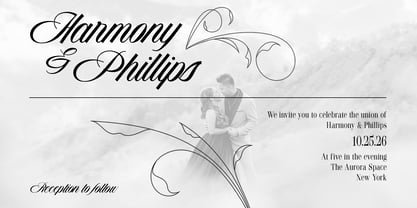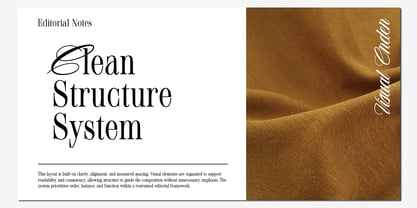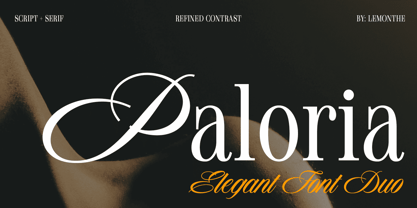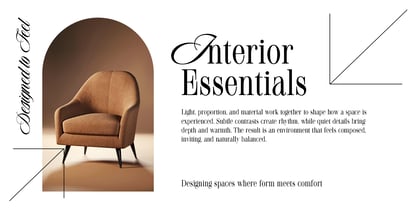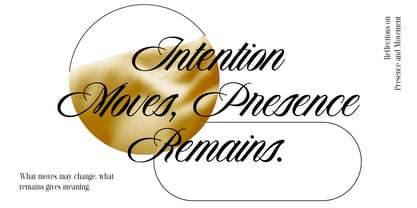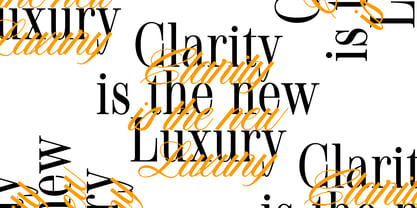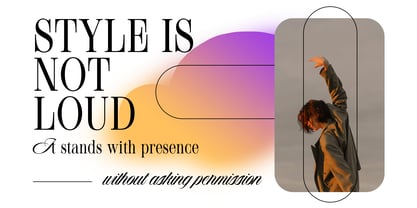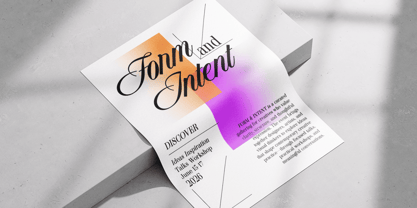
Paloria
by Lemonthe
The Paloria Font Family was designed by Dwi Ahidian and published by Lemonthe. Paloria contains 2 styles and family package options.
Paloria is an elegant font duo that brings together a graceful script and a refined serif to create a balanced and timeless typographic expression. The flowing script adds a sense of softness and sophistication, while the serif provides clarity, structure, and strong visual presence. Designed to complement each other seamlessly, this duo is ideal for branding, editorial layouts, invitations, packaging, logos, and other creative projects that require a harmonious contrast between elegance and readability.
"Lemonthe is a type foundry operated by Dwi Ahidian, a letter enthusiast who enjoys calligraphy and loves experimenting with letter forms. Lemonthe provides a captivating collection of typefaces, each carrying a creative and unique experimental touch, meticulously crafted by hand. Dedication to detail ensures that some typefaces emanate a deep and serious aesthetic, while others showcase a more playful and creative side."